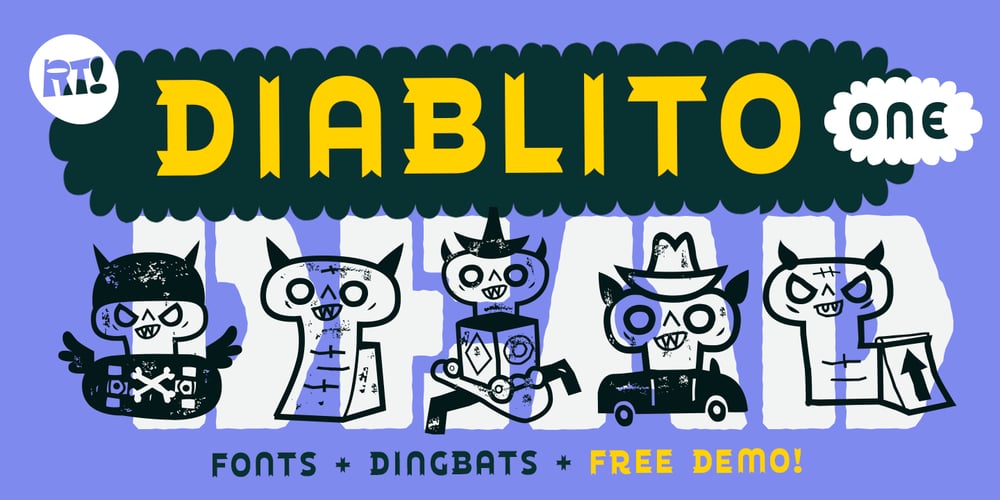
Diablito One
Diablito One font
Diablito One Font Family was designed by Rodrigo Araya Salas, Bruno Jara Ahumada and published by RodrigoTypo. Diablito One contains 6 styles and family package options. is an entertaining font with pointed endings, contains inline and many dingbats, besides having a free version!